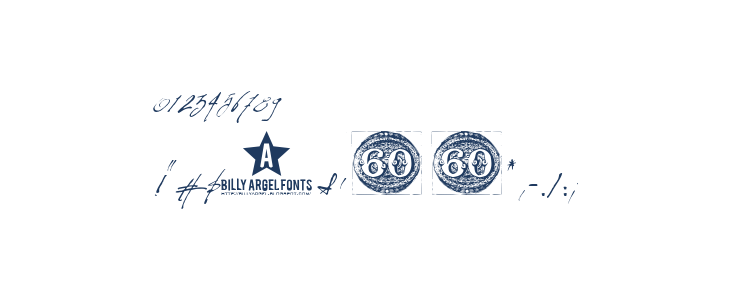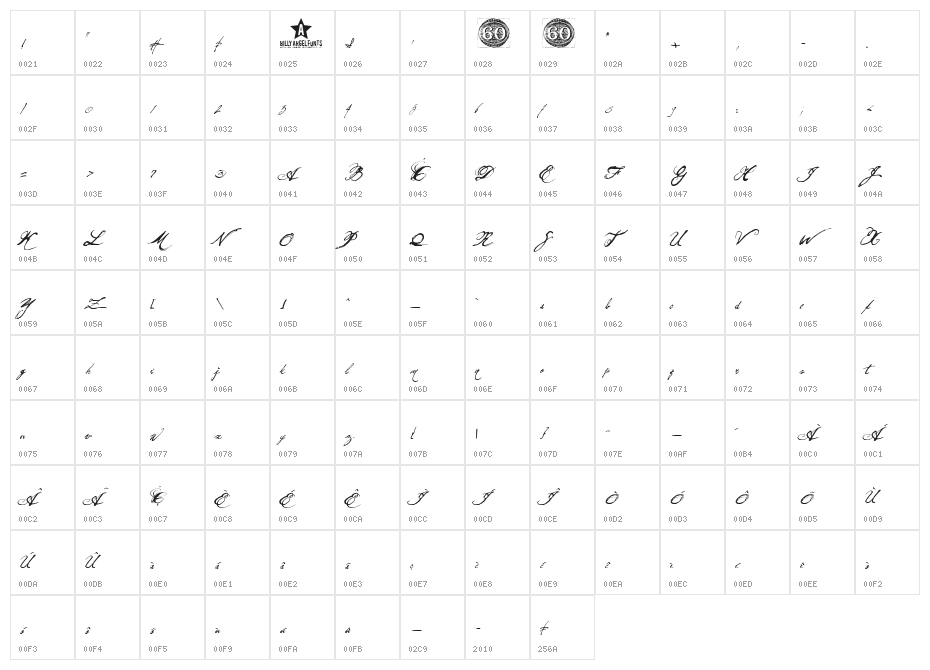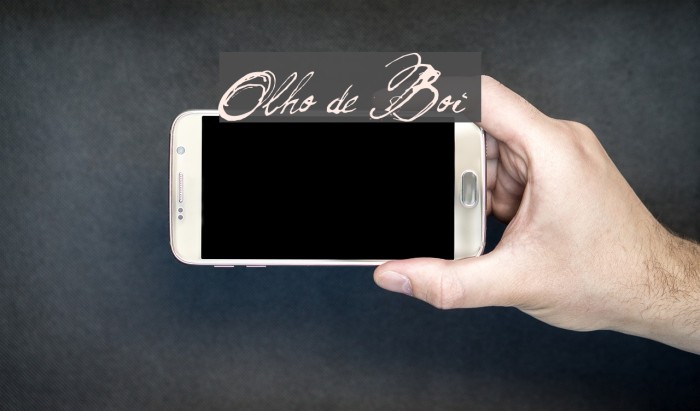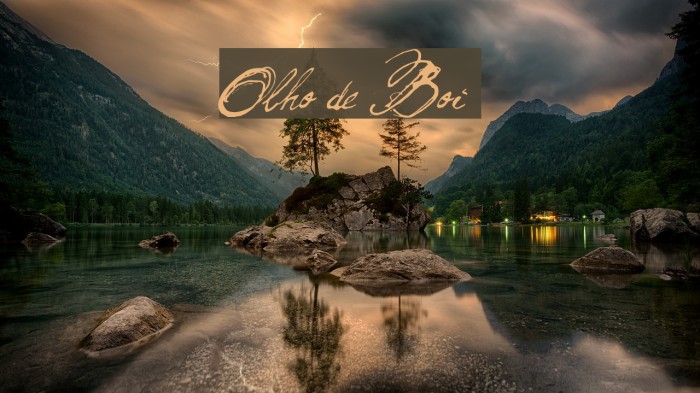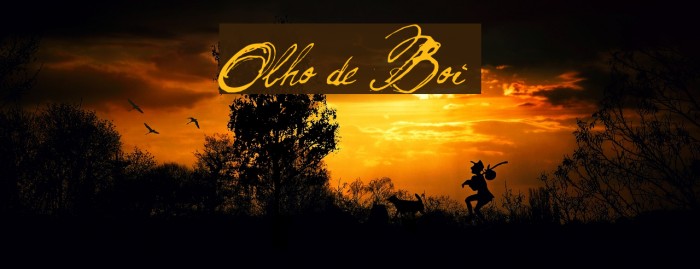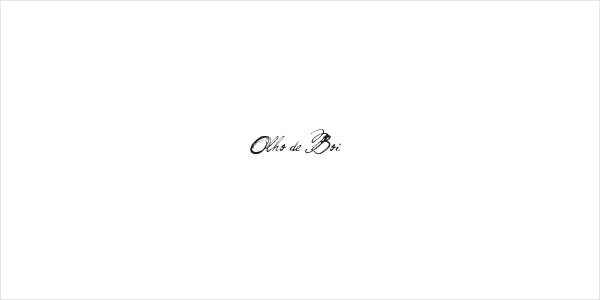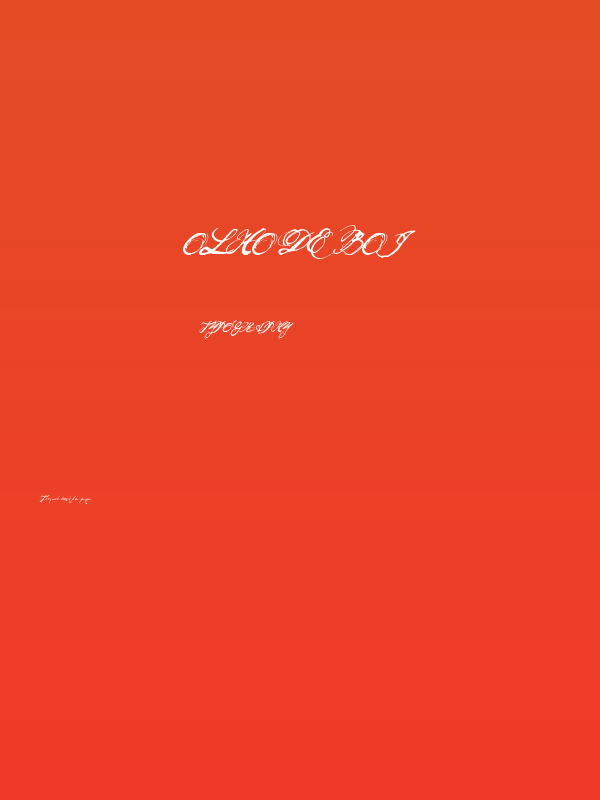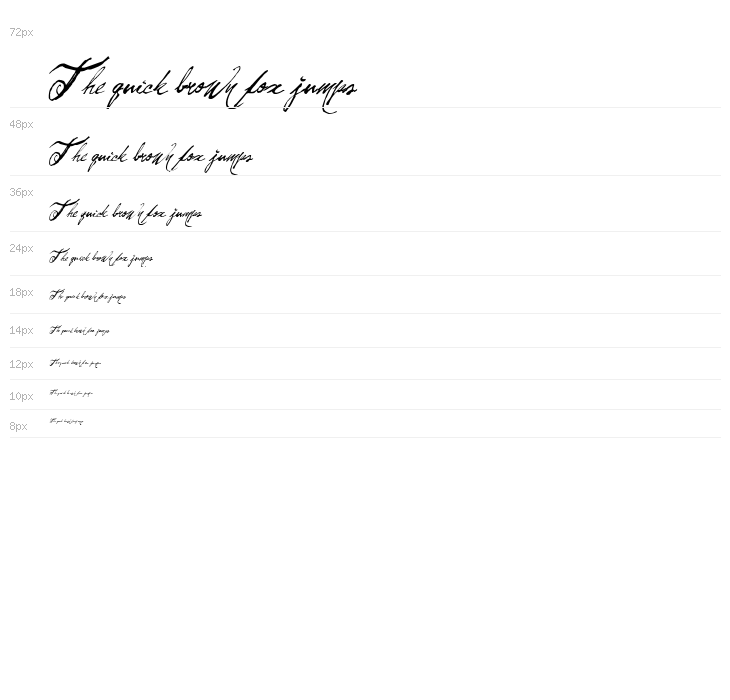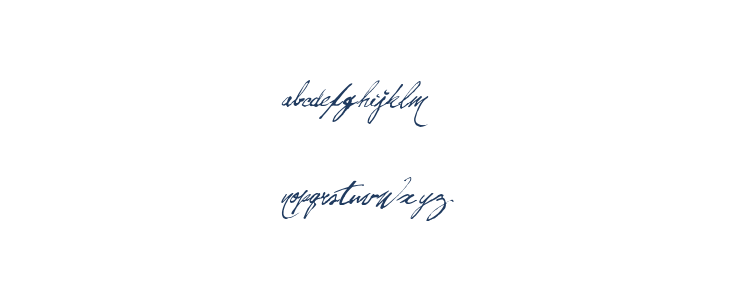
Olho de Boi Font
Olho de Boi Description
This font exudes an elegant and artistic flair, characterized by its flowing, cursive script that mimics the fluidity of handwritten calligraphy. The uppercase letters are elaborate and ornate, with intricate loops and swirls that add a touch of sophistication. The lowercase letters maintain a consistent style, offering a more subdued yet equally graceful appearance. Numbers and special characters are designed with the same attention to detail, ensuring a cohesive look throughout. The font's overall aesthetic is both vintage and decorative, making it suitable for projects that require a touch of elegance and creativity.
| Overall Style | Vintage, Decorative |
| Proposed Projects | Ideal for wedding invitations, greeting cards, branding, and artistic projects requiring a sophisticated touch. |